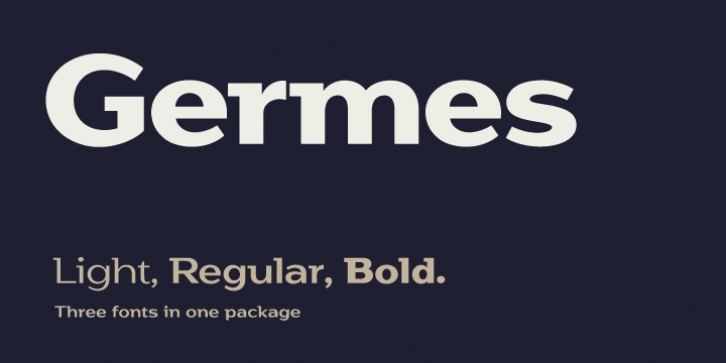
Unusual grotesque with a reverse serif. Font is presented in three faces and each of them has its unique character: elegant Light, casual Regular and strong Bold. “Germes†will suite for logo and package, for infographics and editorial design.